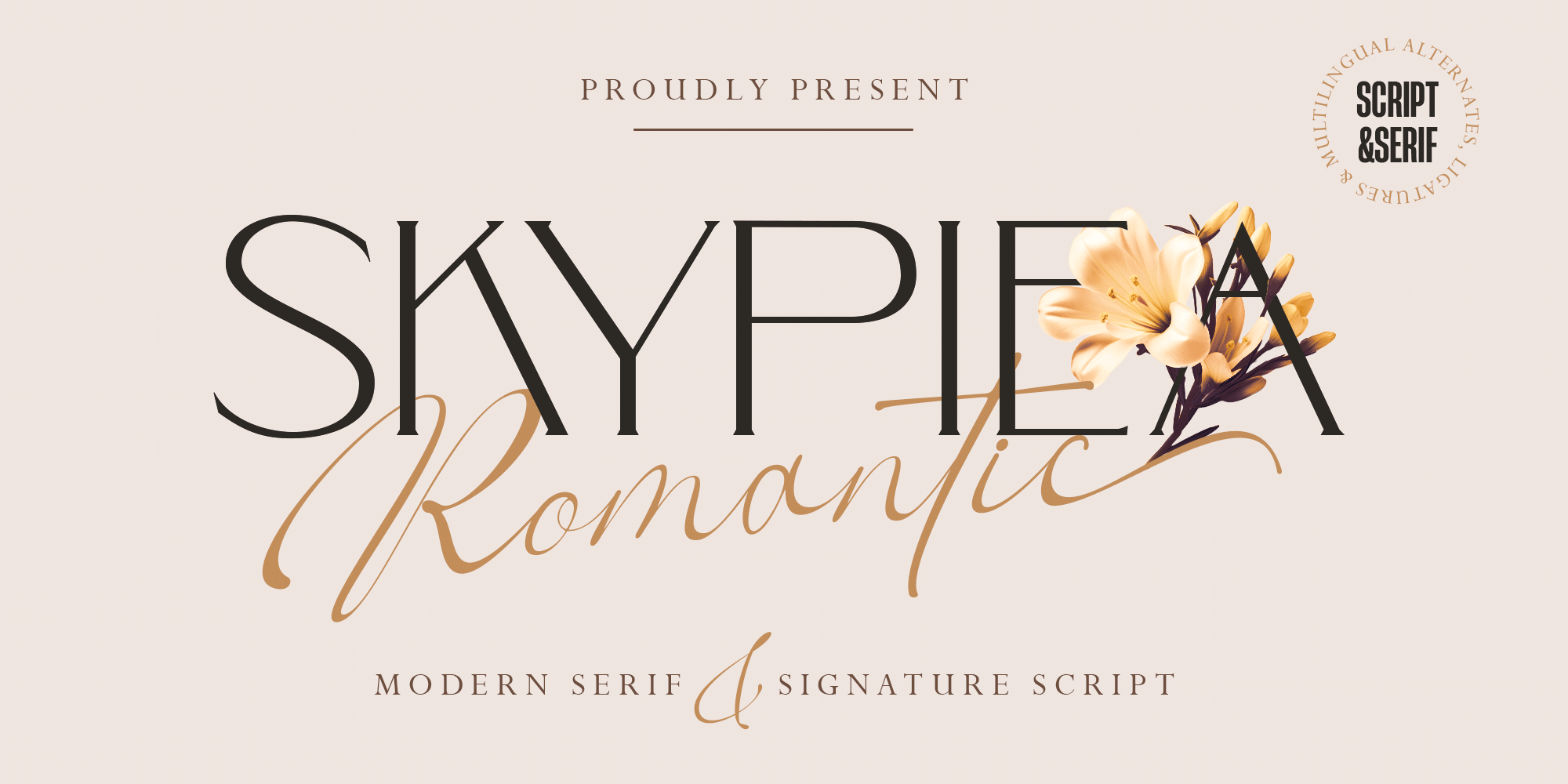
Float into dreamy elegance with Skypiea Romantic Font Free Download – a whimsical yet sophisticated script that blends celestial inspiration with delicate calligraphic beauty. This ethereal typeface features airy, flowing letterforms with subtle cloud-like flourishes, perfect for wedding stationery, fantasy branding, and any design needing magical romance.
Why Skypiea Romantic Captivates
Skypiea Romantic Font Free Download offers:
Delicate, weightless letterforms with dreamy flow
Perfect balance of fantasy and elegance
Multiple stylistic alternates for customization
Excellent readability despite decorative flair
Skypiea Romantic Font Free Download Technical Features:
Complete uppercase and lowercase characters
Extensive swash and terminal variations
Romantic ligatures and alternates
Enchanting Applications:
Fairy tale wedding invitations
Fantasy book covers
Celestial-themed branding
Luxury cosmetic packaging
Dreamy social media graphics